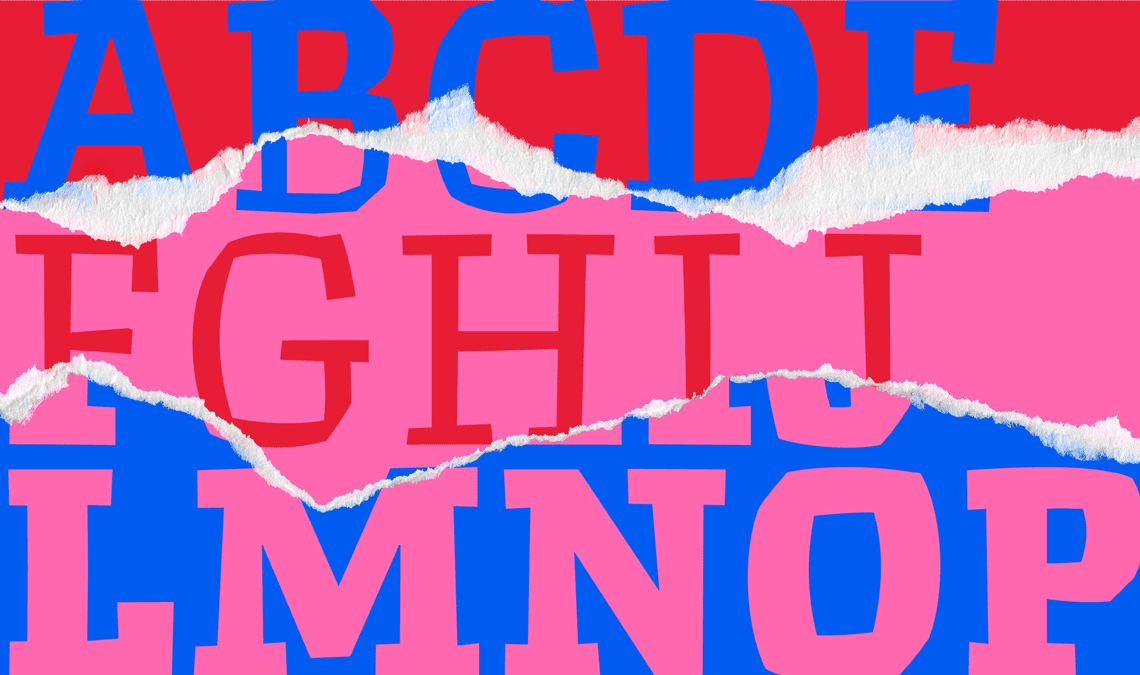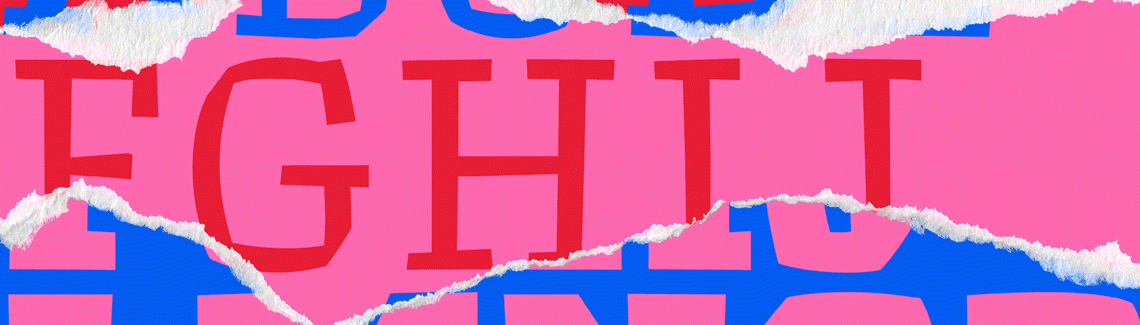
Rezak in motion
Rezak: a jaunty, dynamic type family that stretches beyond one specific font category and use, designed by Anya Danilova.
Nothing is hidden in the simplistic forms and overt aesthetic of Anya Danilova’s Rezak font family. Rezak is not a type family directly from the digital world, but was inspired by the stout presence of cutting letters out of tangible material: paper, stone, and wood. With only a few cuts, the shapes remain dark and simple. With more cuts, the shapes become lighter and more defined, resulting in a dynamic type family not stuck within one specific category.
Rezak supports Latin and Cyrillic, and it includes four text weights plus italics, and two display styles.